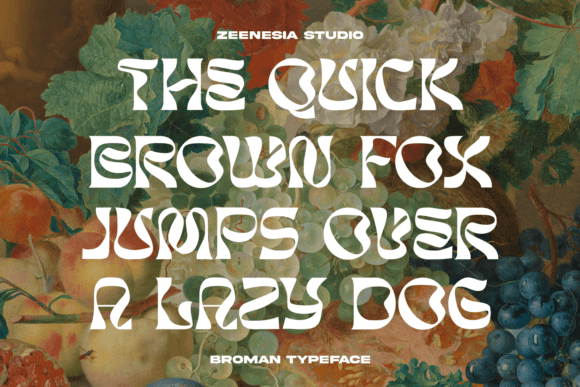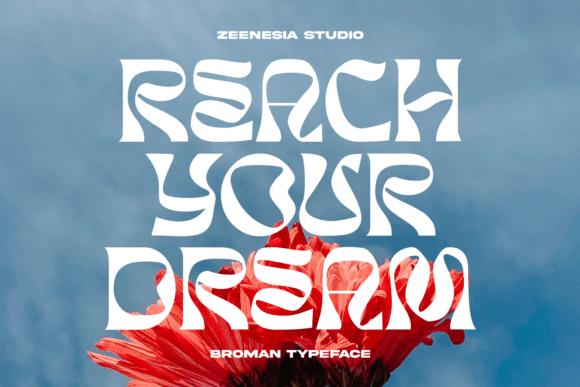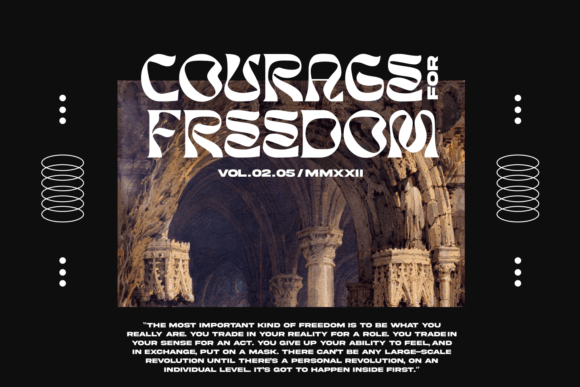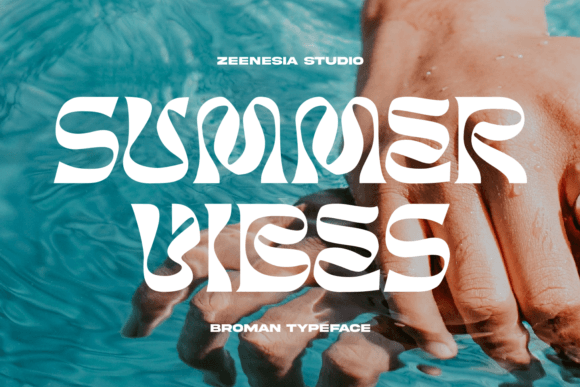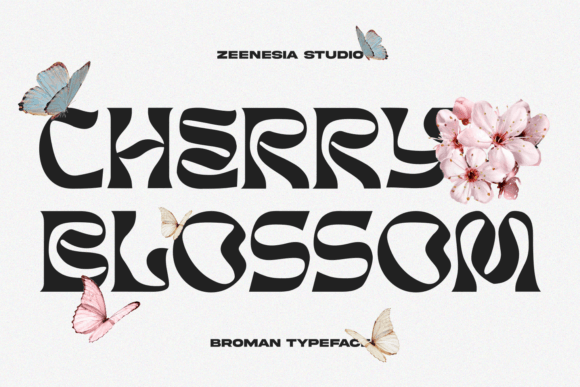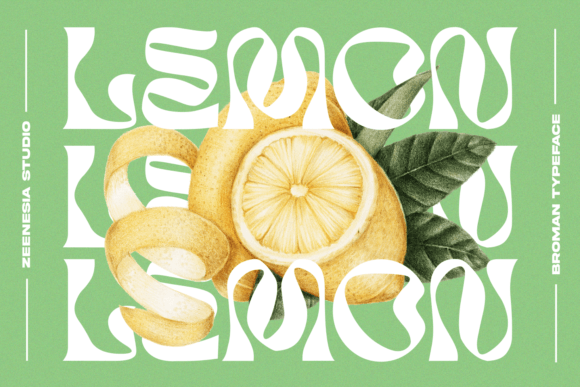
The Broman Font: A Bold and Fun Addition to Your Design Projects
Have you ever been working on a design project, and suddenly, you feel like it’s just missing that extra oomph? You’re not alone! I recall a recent experience where I was designing a logo for a client’s new clothing brand. I had the concept, the colors, and the overall aesthetic, but something was off. That’s when I stumbled upon the Broman font, and it completely transformed my design.
The Broman font is a bold, modern display font with a unique style that’s perfect for adding a dose of fun to your project. Its versatility makes it suitable for various applications, including editorial projects, logo design, clothing, branding, product packaging, magazine headers, or simply as a stylish text overlay to any background image.
- ✨ Unique and bold style that’s sure to grab attention
- ✅ PUA encoded, making it easy to access all glyphs and swashes
- 💥 Perfect for adding a touch of fun and personality to your designs
- 🎨 Highly versatile and suitable for various design applications
While the Broman font is an excellent choice for many design projects, there are a few things to keep in mind:
- ⚠️ May not be suitable for body text or small font sizes due to its bold nature
- 🤔 Limited availability of certain characters or swashes, but this can be overcome with the PUA encoding
While the true story behind the Broman font’s creation is unknown, it’s easy to imagine that the designer was inspired by the world of advertising and signage. Perhaps they wanted to create a font that would stand out in a crowded cityscape or grab attention on a billboard. Whatever the inspiration, the result is a font that’s sure to add a touch of fun and personality to your designs.
A: PUA (Private Use Area) encoding allows font designers to include additional characters, glyphs, and swashes that can be accessed easily by users. This means you can access a wider range of creative options when using the Broman font.
Q: Is the Broman font suitable for body text or small font sizes?
A: Due to its bold nature, the Broman font may not be the best choice for body text or small font sizes. It’s better suited for headlines, titles, or large display text.